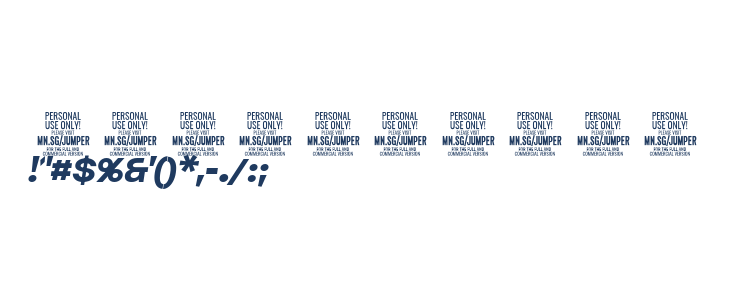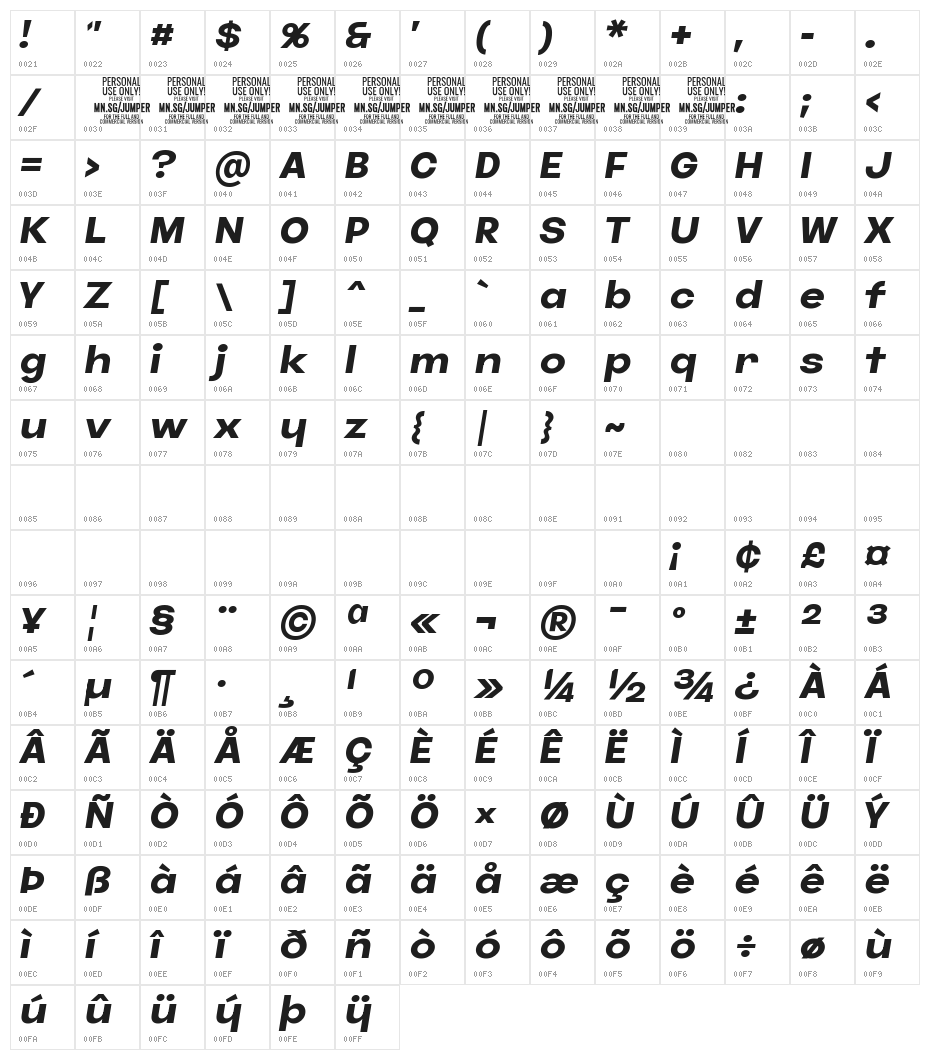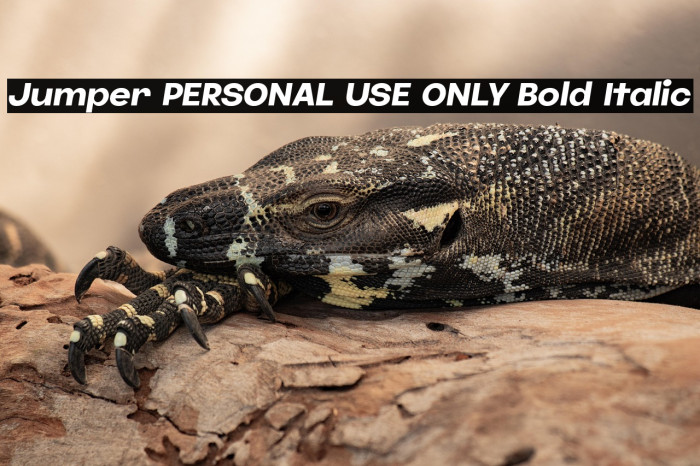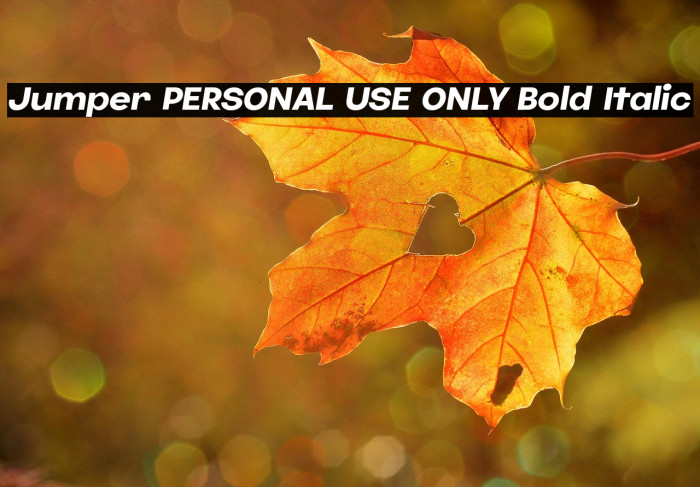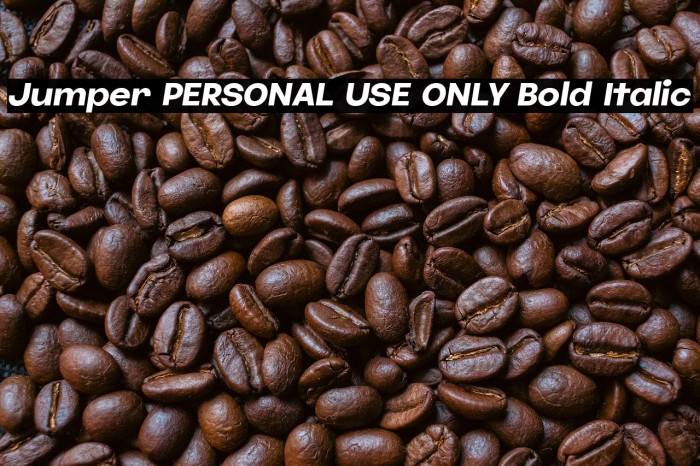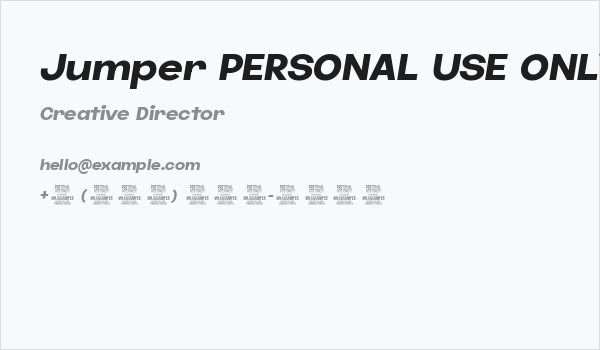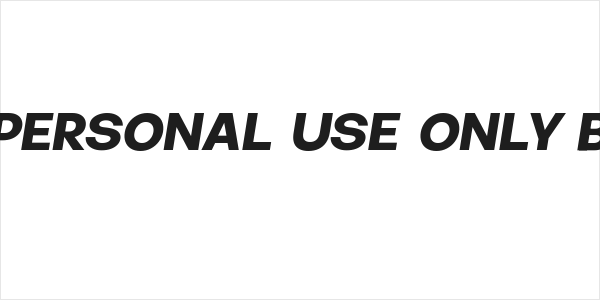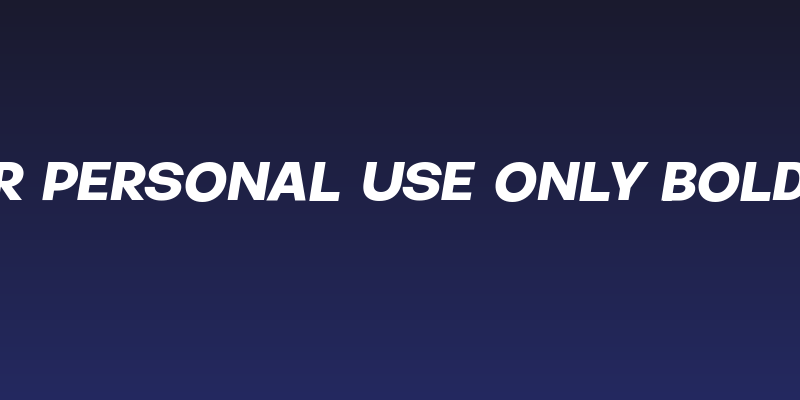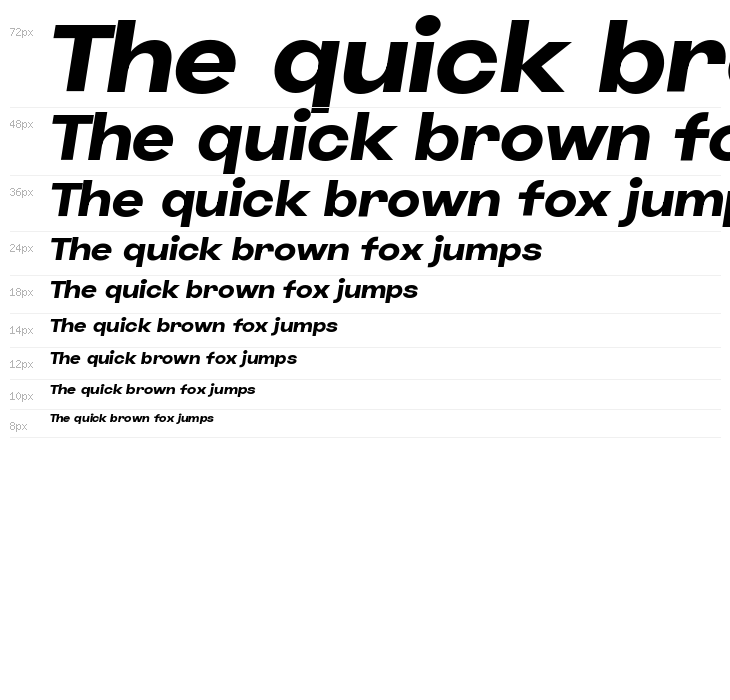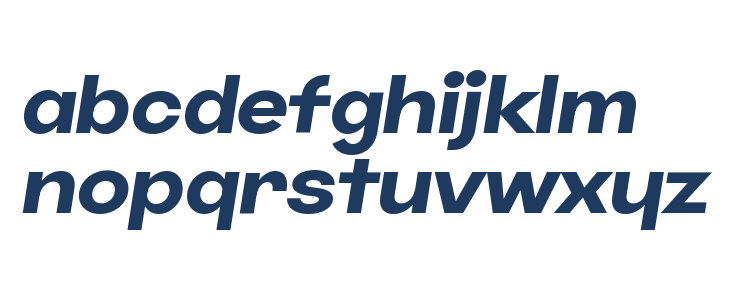
Jumper PERSONAL USE ONLY Bold Italic Font
Jumper PERSONAL USE ONLY Bold Italic Description
This font presents a bold and italicized style, characterized by its strong and dynamic appearance. The letters are slightly slanted, giving a sense of motion and energy. The strokes are thick and consistent, providing a robust and confident look. The uppercase and lowercase letters maintain a uniform width, contributing to a cohesive and balanced design. The numerals and special characters follow the same bold and italicized style, ensuring consistency across all elements. This font is suitable for projects that require a modern and assertive aesthetic.